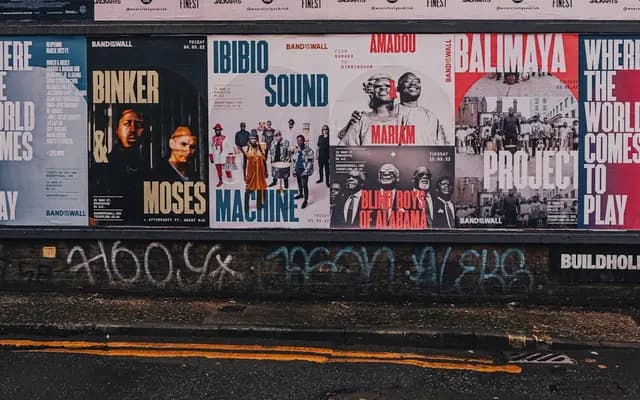
F37 Stout
A twenty-style digitisation of an American letterpress face called Stoutheart, running from Ultra Compressed to Expanded for posters and packaging.
A display family by F37 drawn from a vintage American letterpress face called Stoutheart. Twenty styles span four weights across five widths from Ultra Compressed through Compressed, Condensed, Regular and Expanded, giving a single system for posters, packaging and brand work that wants a wood-type voice with modern fit. Reach for it on bold mastheads, beer and brewery branding (F37's specimen leans into Beamish), sports identities and any setting where you want the impact of vintage wood type without the wear.
A digitisation of an old American letterpress face called Stoutheart, expanded by F37 into a twenty-style system that runs across five widths from Ultra Compressed to Expanded.